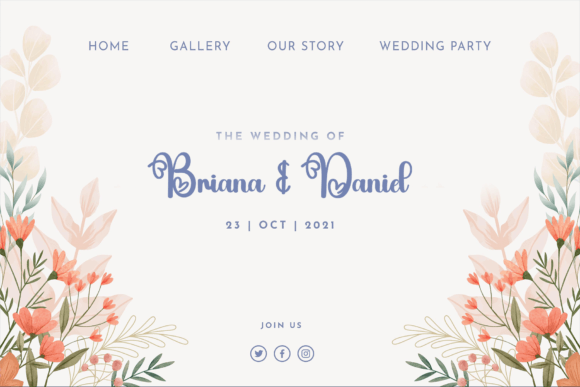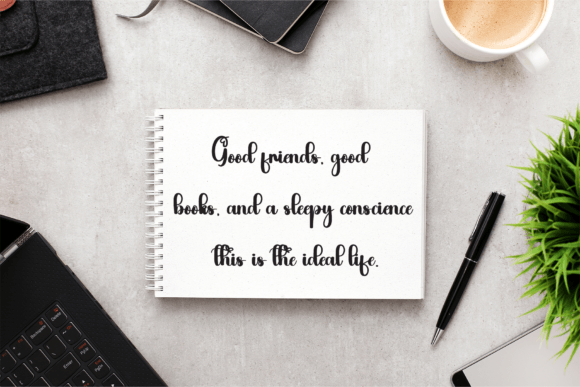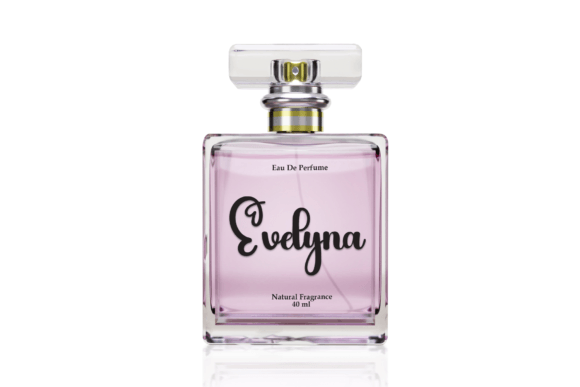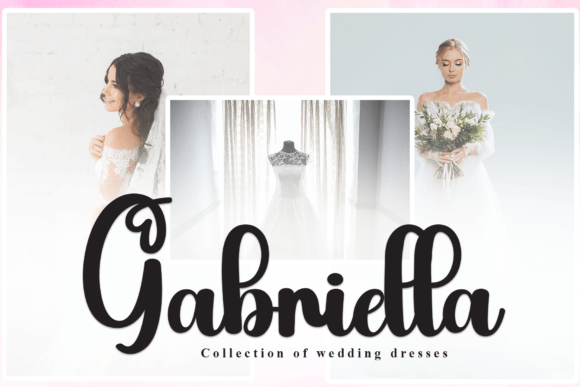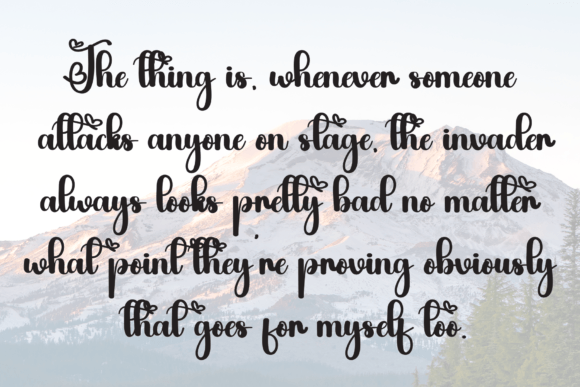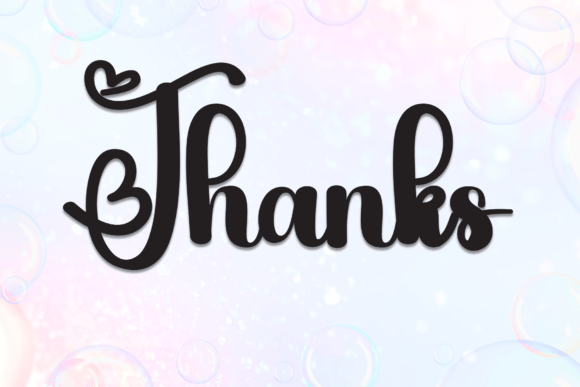
When Words Become Whimsical: The Allure of Bubble Font
Have you ever stared at a blank page, searching for the perfect font to match the emotions of your design? I know I have. The blank page stares back, and then, suddenly, inspiration strikes. You imagine a font that exudes warmth, friendliness, and a dash of playfulness – a font that makes your design come alive. This is where the magic of Bubble Font begins.
Bubble Font is a charming, handwritten display font that brings a touch of sweetness to any design. Its playful appeal makes it the perfect choice for crafting wedding invitations, greeting cards, or any design that needs a sprightly touch. As a designer, you’ll appreciate the value of Bubble Font in adding a personal and whimsical touch to your creations.
Bubble Font Key Features
- Font Type: A unique, hand-drawn font with a bubble-like design, ideal for creating playful and whimsical text.
- Character Set: Includes a wide range of characters, including uppercase and lowercase letters, numbers, and punctuation marks.
- Language Support: Supports multiple languages, making it a versatile choice for global designs.
Bubble Font Review
Overall, I think the Bubble Font has a lot of potential, but it needs some tweaks to make it truly shine. ✨ One thing I love is the playful, whimsical feel it gives to any text. It’s perfect for creating a fun and approachable atmosphere in branding, advertising, or even digital interfaces. The rounded, bubbly shapes add a touch of personality that’s hard to resist.
However, there are some limitations that might make it less suitable for certain projects. ⚠️ For one, the font can be quite difficult to read at smaller sizes. The rounded shapes can start to blur together, making it hard to discern individual letters. Additionally, the font’s unique style might not be the best fit for formal or professional contexts, where a more serious tone is desired.
Here are some specific things to consider when working with the Bubble Font:
- Best used at larger sizes for optimal readability
- Not ideal for formal or professional contexts
- May require additional styling to maintain legibility at smaller sizes
Overall, I think the Bubble Font is a great choice for creative projects that need a playful, attention-grabbing touch. With some careful planning and styling, it can add a lot of personality to your design.
Use the bubble font to add visual interest to your designs and create a playful atmosphere. It’s perfect for:
– Party invitations
– Children’s books
– Web headers and footers
– Anywhere you want to add a touch of whimsy and fun.
The bubble font is commonly used in:
– Event invitations (birthdays, weddings, etc.)
– Children’s party decorations and accessories
– Social media posts and stories
– Web headers and footers
– Anywhere you want to add a playful and eye-catching element.
Alternatives to Bubble Font
1. Papyrus Font
Papyrus Font is a serif font that mimics ancient Egyptian hieroglyphics. It’s ideal for use in historical or cultural designs, as well as for adding a sense of mysticism or otherworldliness. Unlike Bubble Font, which is more playful and childlike, Papyrus Font is more serious and elegant.
Pacifico Font is a beautiful, modern script font that is perfect for use in elegant or sophisticated designs. It’s ideal for use in wedding invitations, luxury branding, or any design that requires a touch of class. Unlike Bubble Font, which is more casual and playful, Pacifico Font is more refined and sophisticated.
Great Vibes Font is a modern, script font that is perfect for use in creative or artistic designs. It’s ideal for use in posters, flyers, or any design that requires a sense of energy and excitement. Unlike Bubble Font, which is more childlike and playful, Great Vibes Font is more mature and sophisticated.
How do I customize Bubble Font for my project?
You can customize Bubble Font by adjusting its size, color, and style using design software like Adobe Illustrator, Photoshop, or Sketch. You can also use font editing software like FontForge or FontLab to modify the font’s characteristics, such as its width, weight, and spacing. However, be aware that modifying a font can affect its legibility and overall aesthetic.